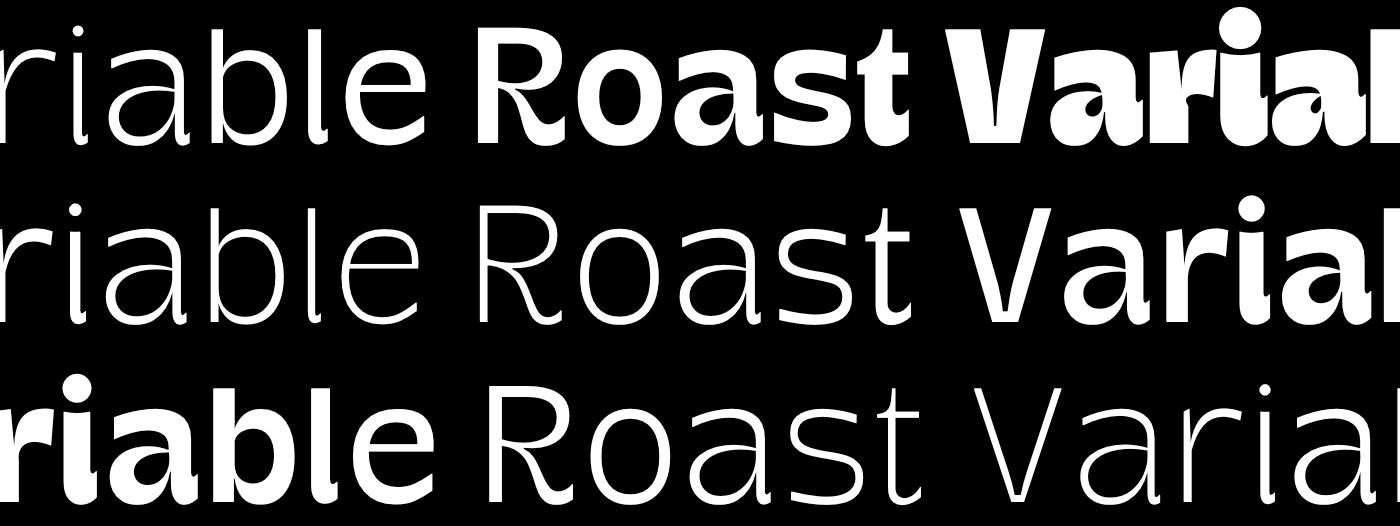
Roast
Roast is a friendly typeface bringing summery fun vibes. This typeface is great for display projects such as packaging, posters and branding. It is available for Desktop or Web in 9 weights with the variable file included in the full family pack.